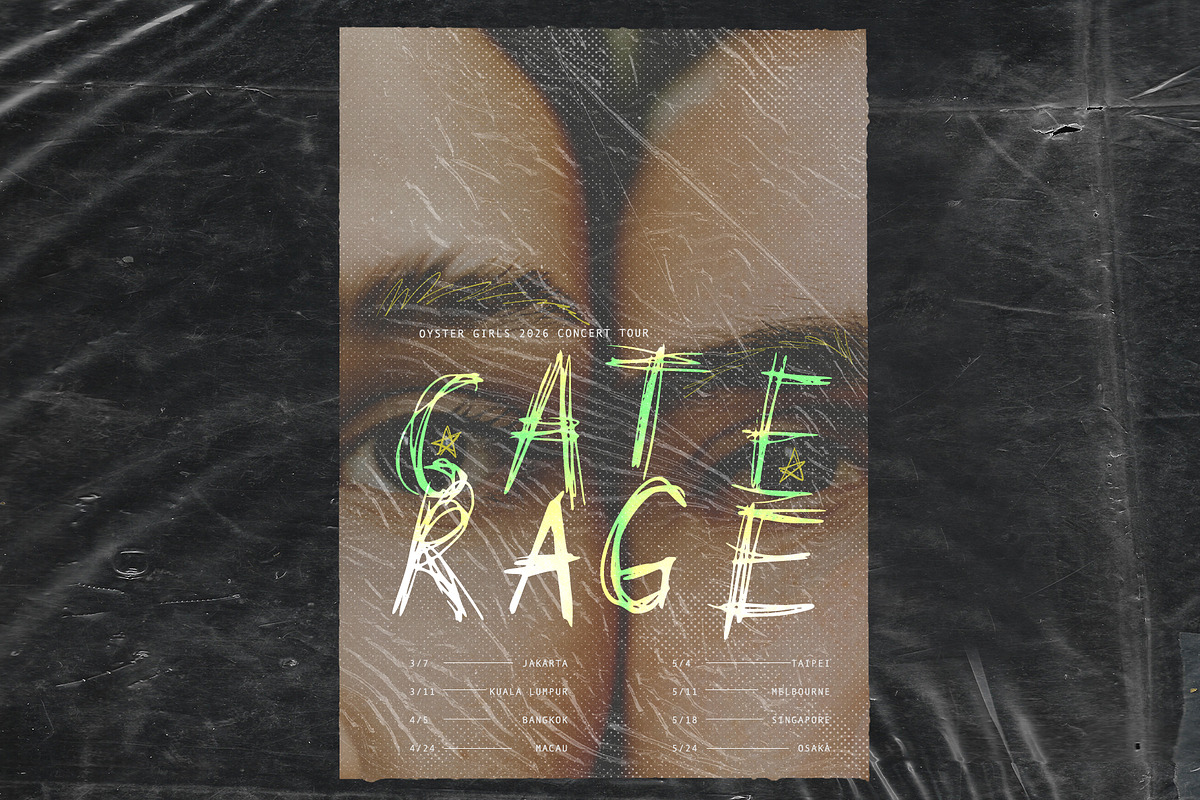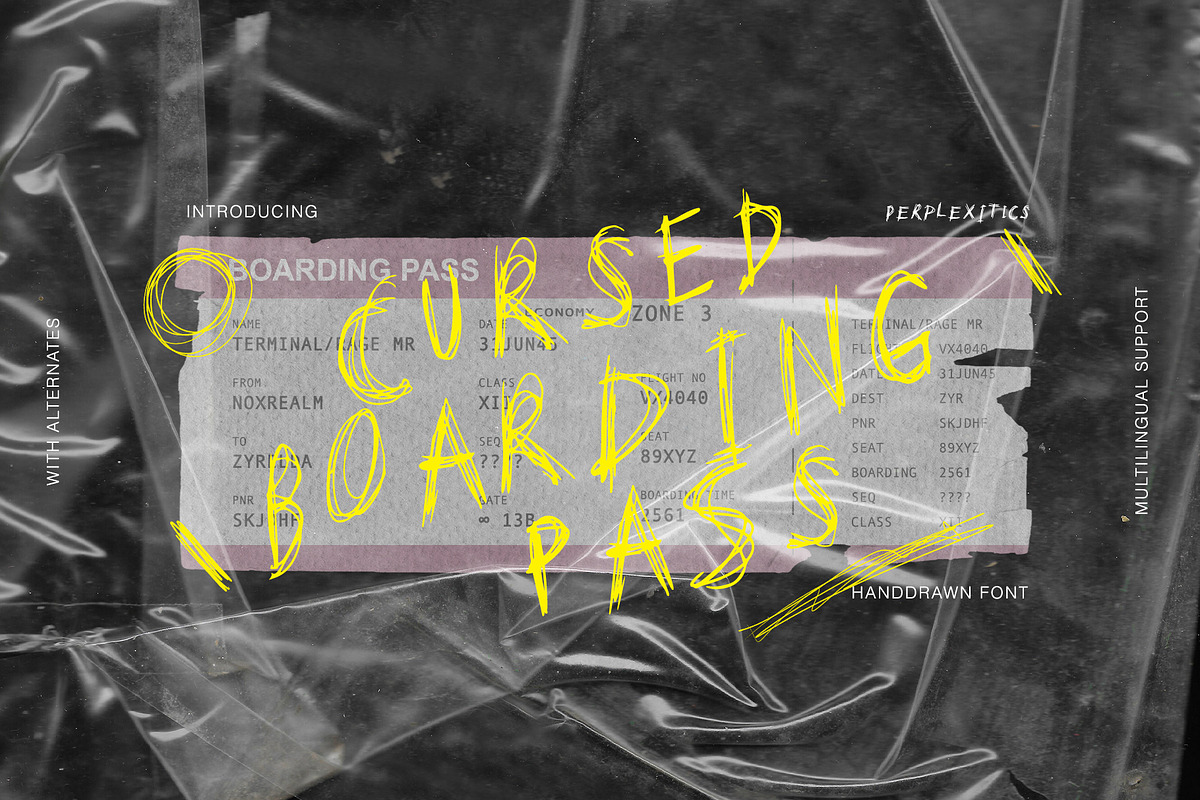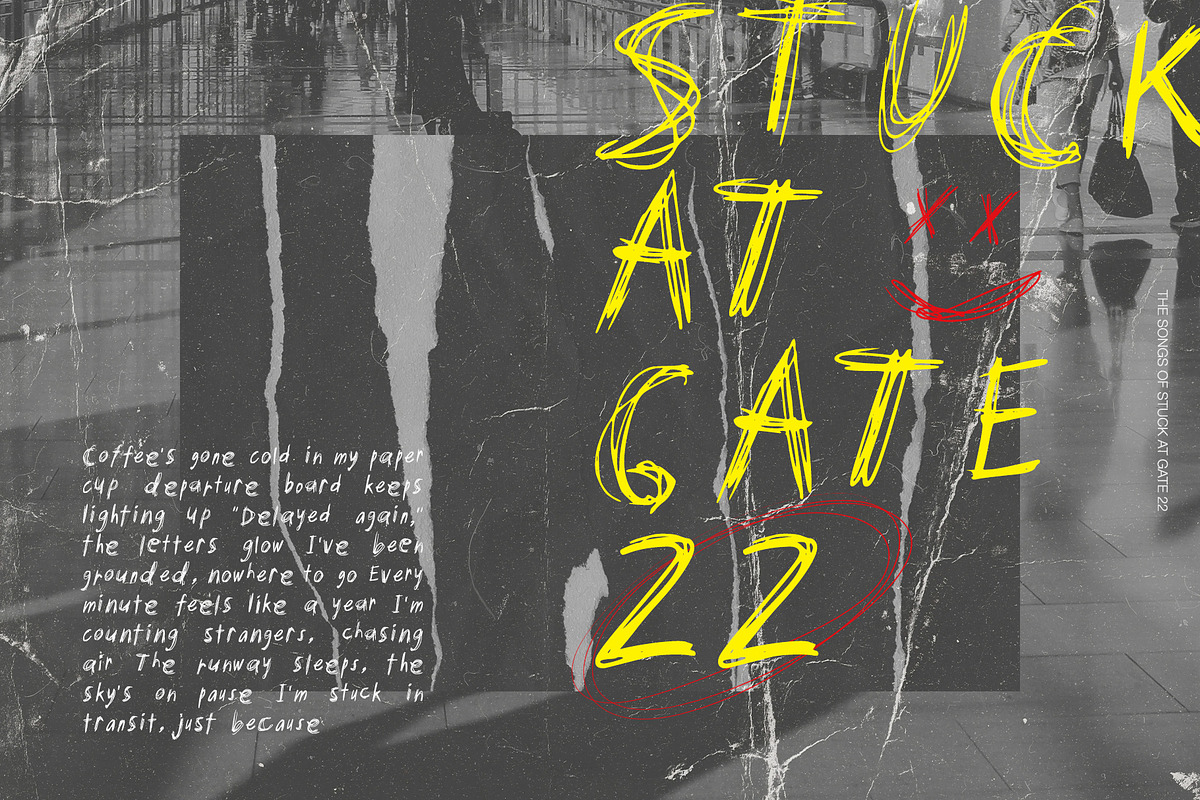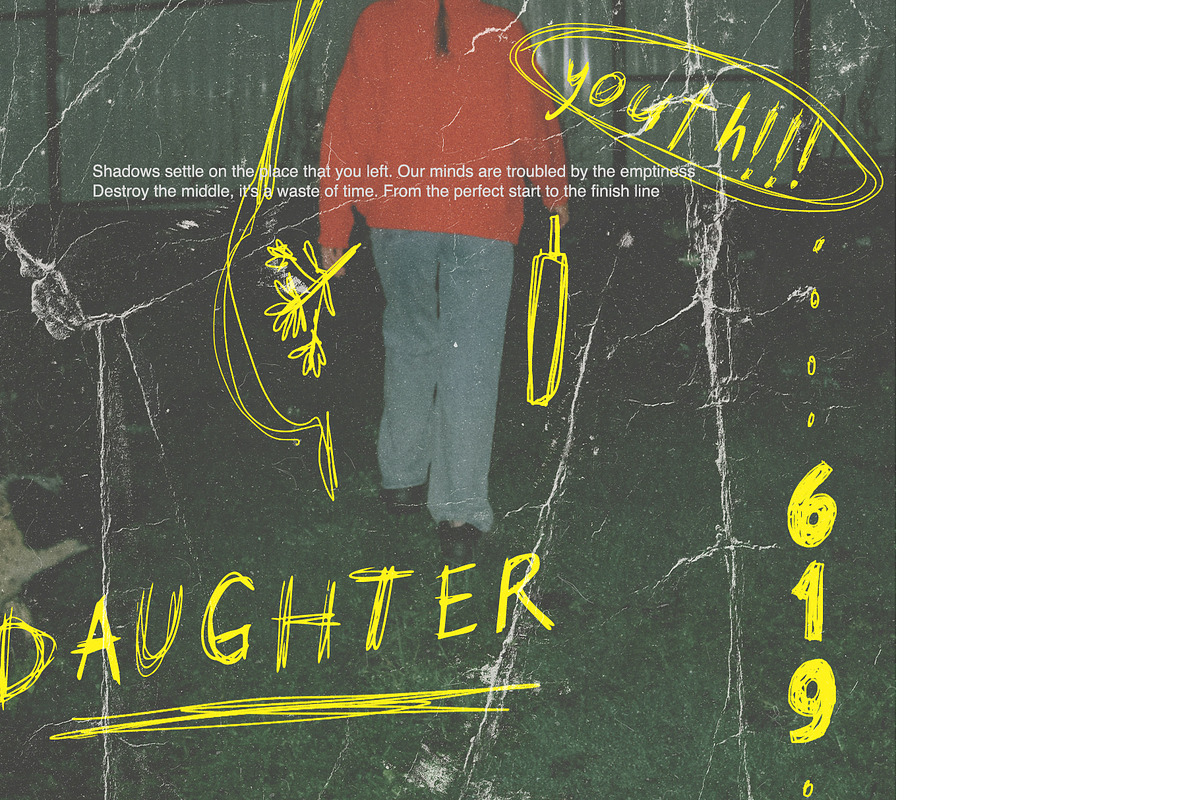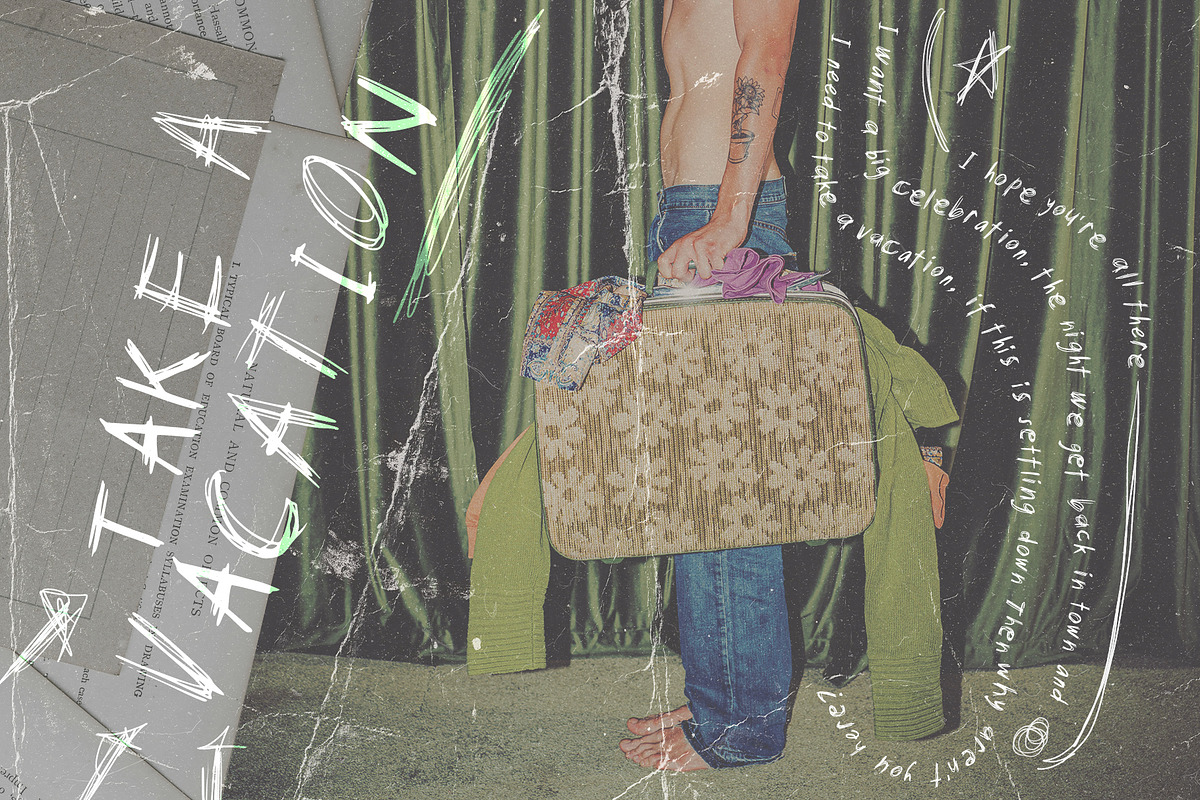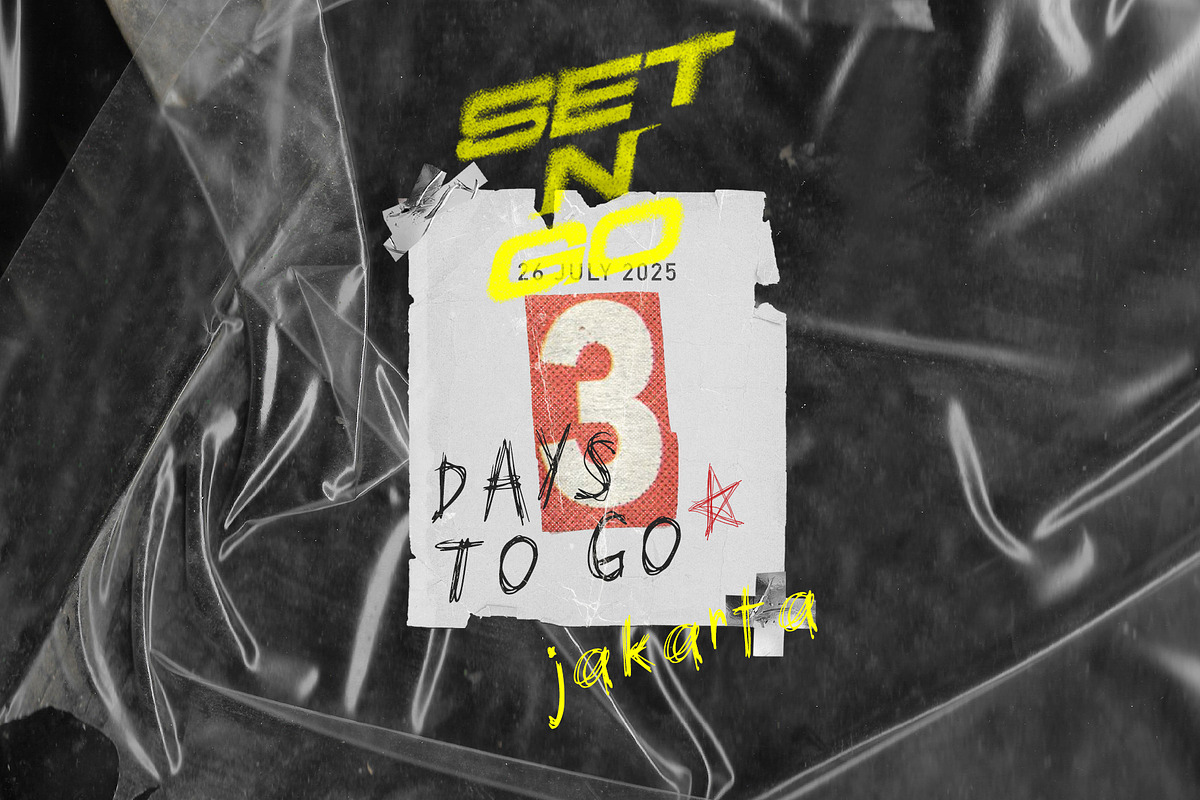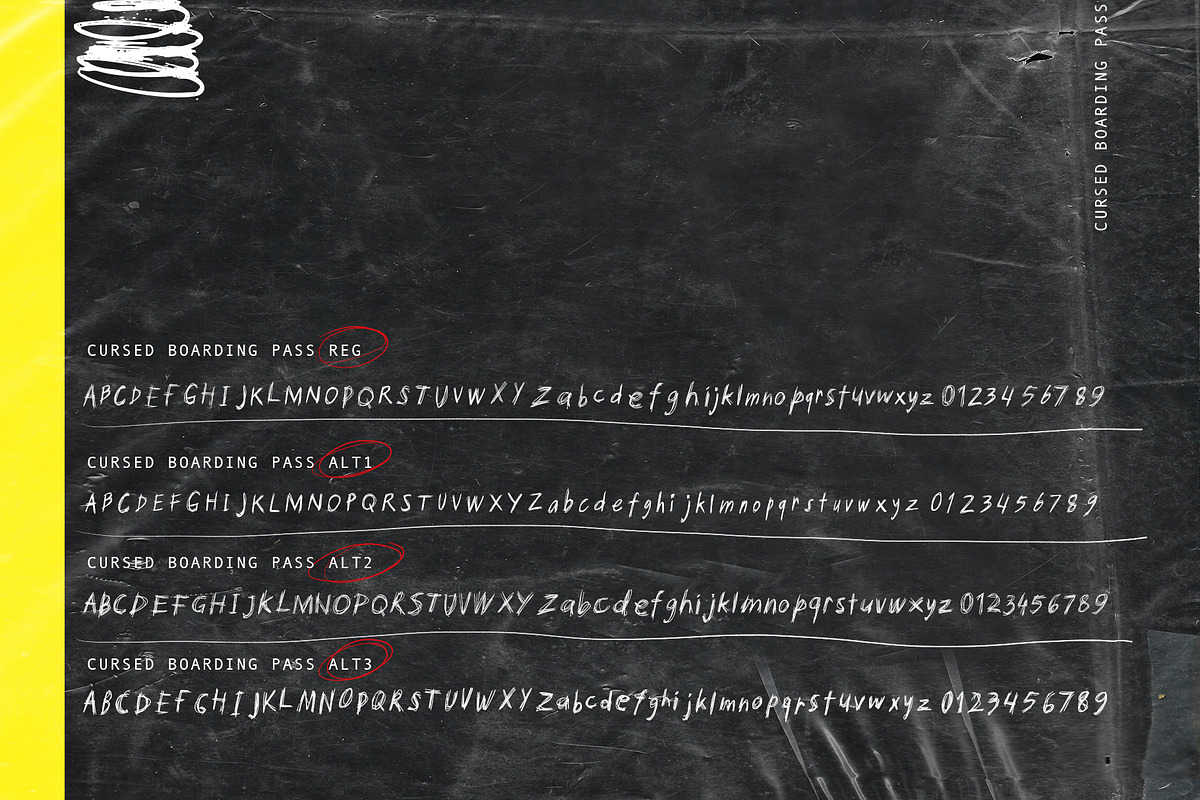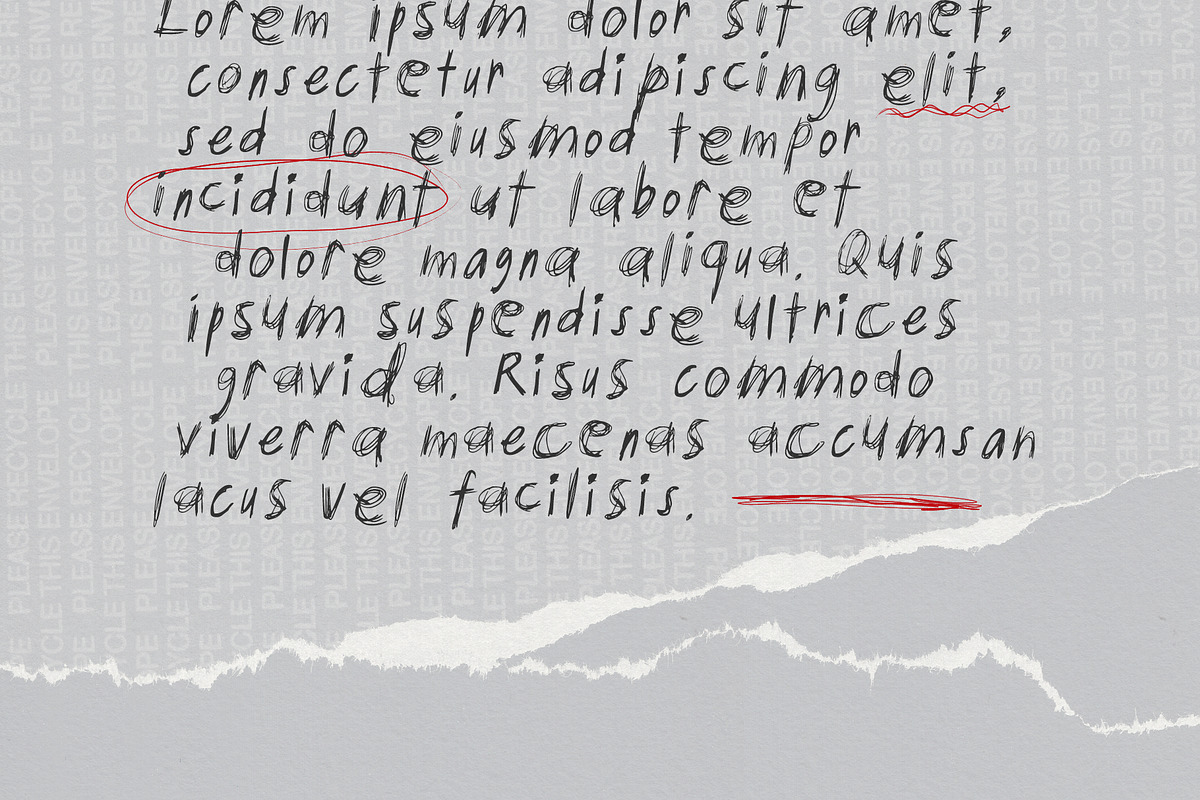
Cursed Boarding Pass Handdrawn Font
Cursed Boarding Pass Hand-drawn Font is a chaotic hand-drawn typeface inspired by delayed flights and restless airport scribbles. With shaky, imperfect strokes, it’s perfect for bold headlines, zines, memes, or any design that needs messy charm and a touch of dark humor.
Cursed Boarding Pass Hand-drawn Font is packed with everything you need, including uppercase and lowercase letters, numbers, and punctuation. Multilingual support.